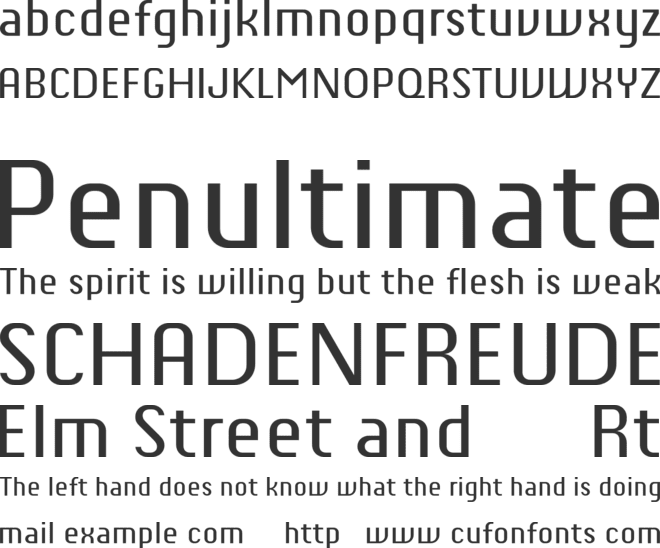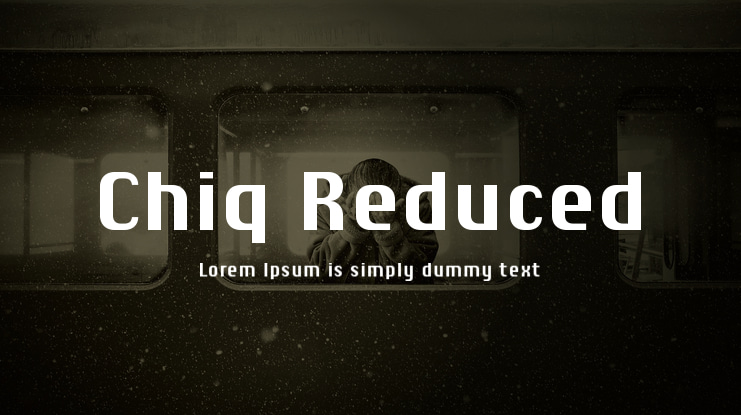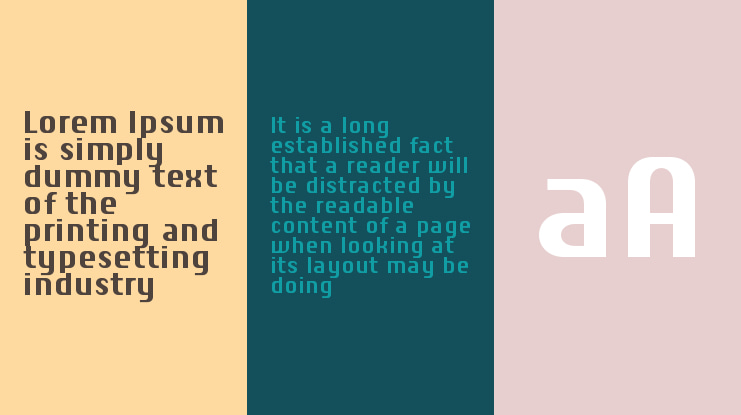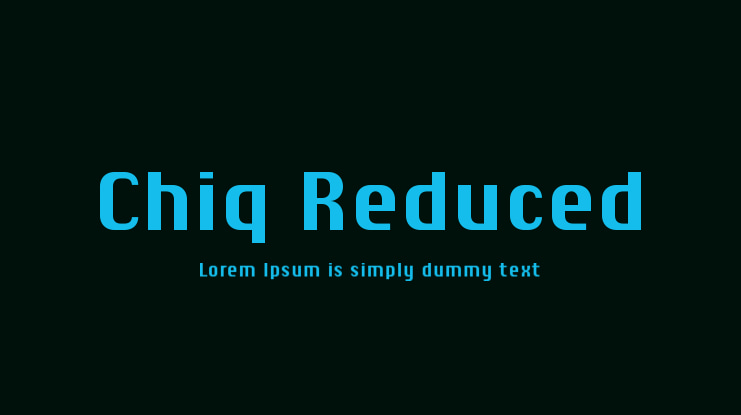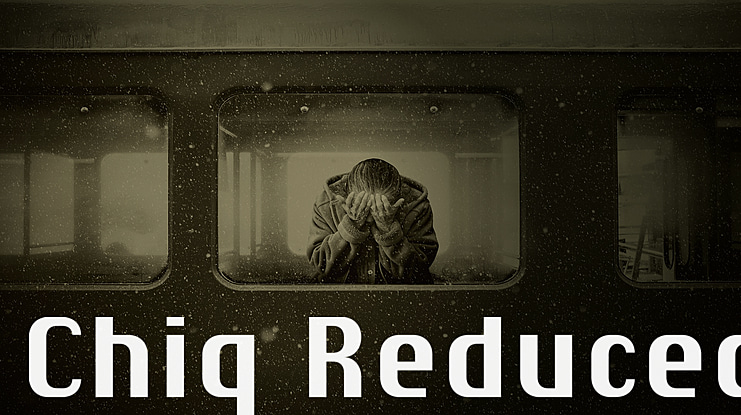
Chiq Reduced Font Family
Ingo Zimmermann
A modern sans serif - very matter-of-fact, reminds you of Apple's Mac OS9, only better. As the name implies, the ingoFont Chiq reflects back on a well-known system font from Apple. With the revision and expansion of the good old "Chicago," I want to make these forms available for the future as well.